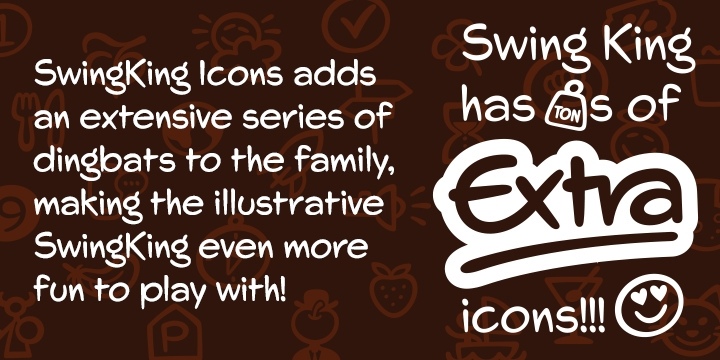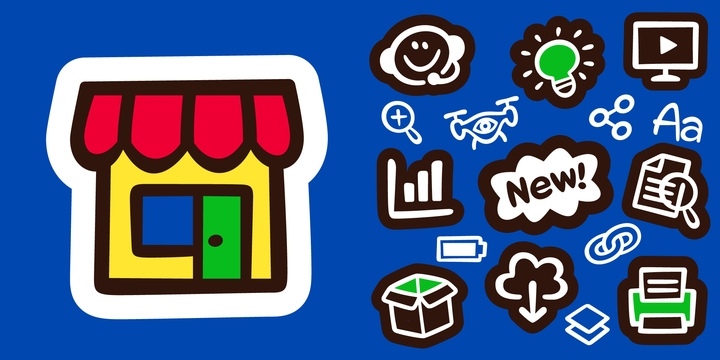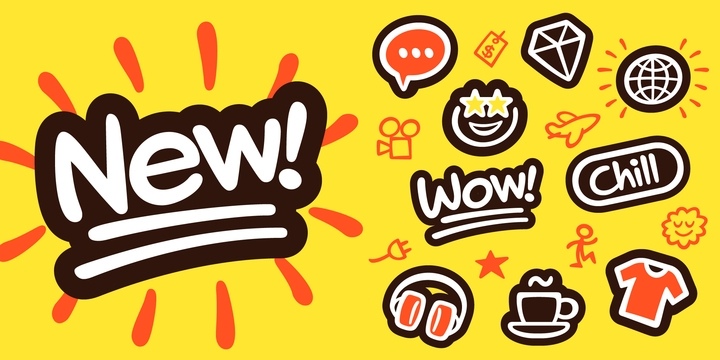
SwingKing Icons
SwingKing Icons is perfect for music industry branding, jazz club materials, swing dance event graphics, vintage entertainment posters, retro music album covers, classic nightlife marketing, nostalgic social media graphics, rhythmic logo design, musical event invitations, and timeless cultural celebrations.
What makes SwingKing Icons so exciting is its rhythmic character that perfectly captures the energetic spirit and timeless sophistication of swing era entertainment while providing modern functionality and professional versatility. This dynamic icon set embodies musical heritage and rhythmic elegance, creating visual elements that celebrate the golden age of swing music and dance.
The SwingKing Icons family includes comprehensive icon variations, musical symbols, rhythmic design elements, and swing-inspired graphics that provide designers with extensive tools for creating memorable and authentic visual communications that honor the legacy of swing culture and musical entertainment.
The dynamically designed icons of SwingKing Icons showcase rhythmic elegance with musical character that creates instant recognition of entertainment quality and cultural authenticity. Each icon displays careful attention to maintaining the energetic spirit that defines swing culture while ensuring contemporary usability and professional versatility. The collection's rhythmic construction and musical spacing contribute to its authentic appearance and entertainment appeal.
Music venues and entertainment brands consistently choose SwingKing Icons for projects requiring authentic musical character and rhythmic sophistication. The comprehensive icon set includes musical symbols, dance elements, entertainment graphics, cultural motifs, and swing-inspired designs that provide complete support for music industry applications and entertainment-focused design compositions.
The timeless versatility of SwingKing Icons ensures exceptional performance across both traditional print and modern digital platforms. Whether developing music venue identities, creating entertainment marketing materials, or designing cultural event graphics, this remarkable icon collection delivers consistent rhythm that resonates with audiences appreciating musical heritage and swing culture authenticity.